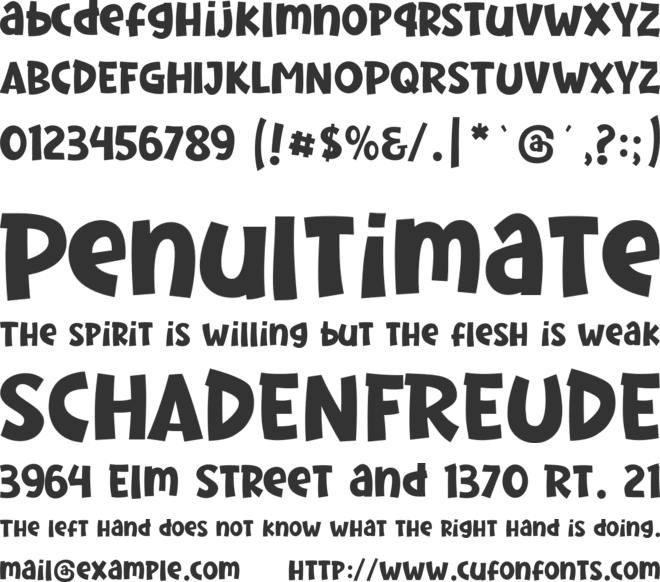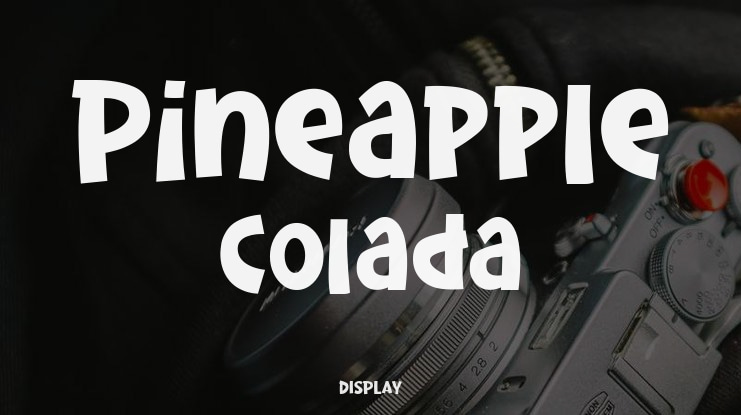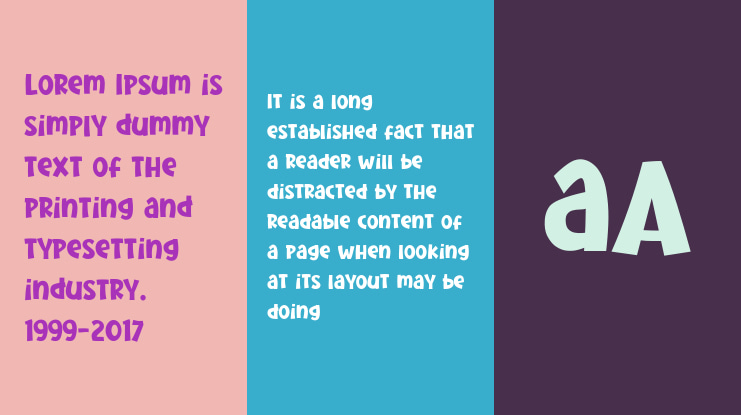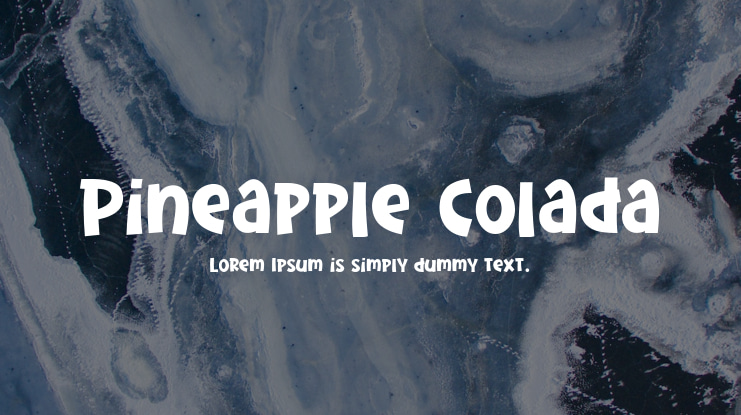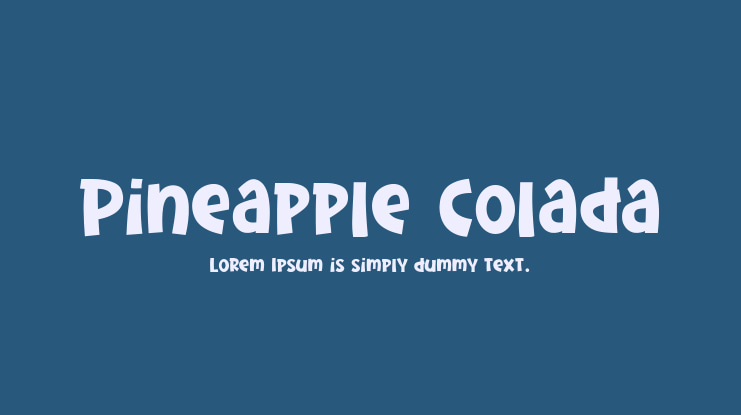
Pineapple Colada Font
Pineapple Colada is a fun display typeface designed to leave a lasting impression. With its bold and unique letterforms, Pineapple Colada exudes strength and character, making it perfect for headlines, posters, and branding that seek to capture attention.
Choose Pineapple Colada to give your designs a powerful and captivating presence.